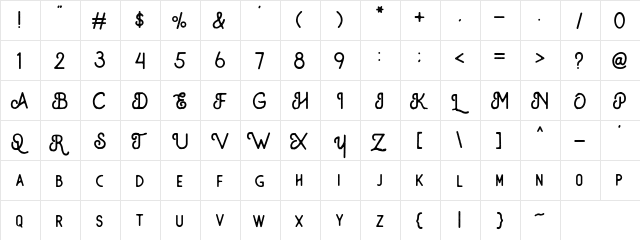
The Monokill Vintage
Design Context for The Monokill Typeface
The Monokill has the warm character of retro typography — evoking diners, record sleeves, and the golden age of print advertising.
Ideal for diner signage, record shop branding, 70s/80s-themed projects, and heritage product labels.
Font Pairing: Combine The Monokill with a simple slab or neutral sans — period-accurate companions reinforce the vintage feel without competing for attention.
Pro Tip: Lean into The Monokill's period character by pairing it with aged paper textures, muted colour palettes, and vintage illustration styles.